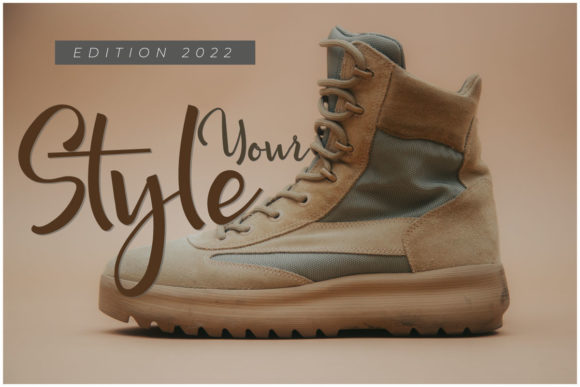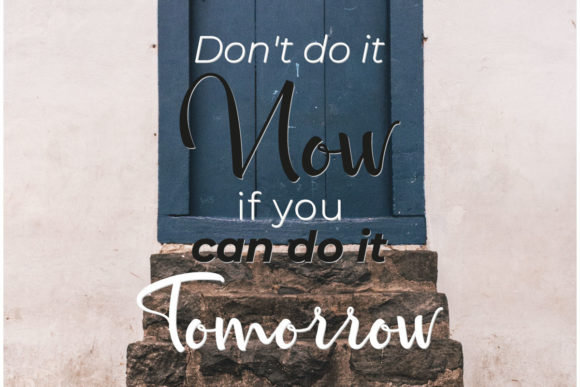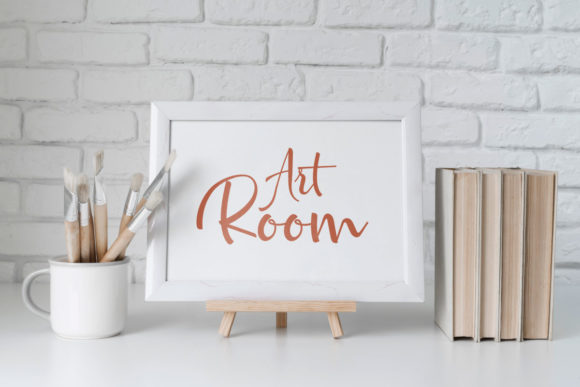
Fruit of Patience Font: Elevate Your Designs with Elegance and Class
In the world of typography, a well-crafted font can make all the difference in transforming a design from ordinary to extraordinary. For designers and crafters seeking a beautiful and refreshing look, the Fruit of Patience font is an excellent choice. This lovely and delicate script font exudes elegance and class, making it perfect for a variety of creative projects.
The Beauty of Fruit of Patience Font
Fruit of Patience is a meticulously designed script font that boasts a unique and captivating charm. Its delicate strokes and elegant letterforms evoke a sense of sophistication and refinement, making it ideal for designs that require a touch of luxury. Whether you’re working on a branding project, wedding invitation, or packaging design, this font is sure to impress.
Key Features of Fruit of Patience Font
• Delicate Script Style: Fruit of Patience features a beautiful script style with flowing connections between letters, creating a sense of movement and fluidity.
• Elegant Letterforms: Each letterform is carefully crafted to exude elegance and sophistication, making it perfect for high-end designs.
• Versatile: This font is suitable for a wide range of creative projects, from branding and advertising to packaging and stationery.
• Easy to Read: Despite its delicate nature, Fruit of Patience is surprisingly easy to read, making it a great choice for body text and headings.
Uses of Fruit of Patience Font
The versatility of Fruit of Patience font makes it an excellent choice for various design projects. Here are some ideas to get you started:
• Branding and Logo Design: Create a lasting impression with a custom logo or branding materials that showcase the elegance of Fruit of Patience.
• Wedding Invitations and Stationery: Add a touch of sophistication to your wedding invitations, save-the-date cards, and other stationery with this beautiful font.
• Packaging Design: Elevate your product packaging with a luxurious and eye-catching design that features Fruit of Patience.
• Advertising and Marketing Materials: Use this font to create stunning ads, brochures, and flyers that capture the attention of your target audience.
Why Choose Fruit of Patience Font?
With so many fonts available, why choose Fruit of Patience? Here are a few compelling reasons:
• Unique and Distinctive: Fruit of Patience stands out from the crowd with its unique and captivating design.
• High-Quality: This font is crafted with attention to detail, ensuring a high-quality design that will elevate your projects.
In conclusion, Fruit of Patience font is a beautiful and elegant script font that is sure to elevate your designs. With its delicate strokes, elegant letterforms, and versatile nature, it’s perfect for a wide range of creative projects. Whether you’re a designer or crafter, this font is an excellent choice for those seeking a refreshing and sophisticated look. So why wait? Give Fruit of Patience a try today and experience the power of elegant typography!